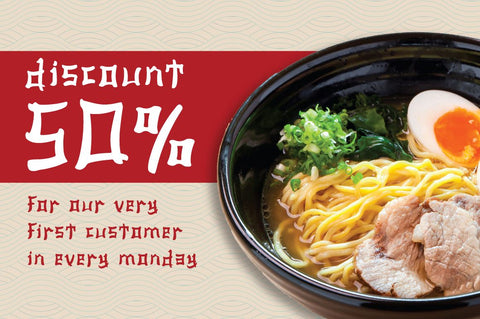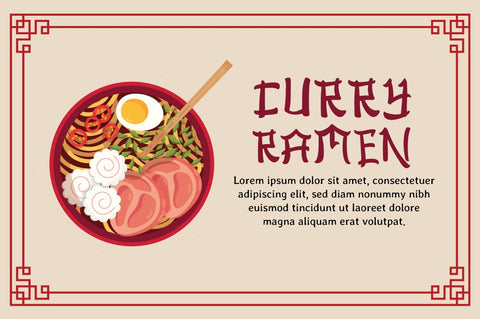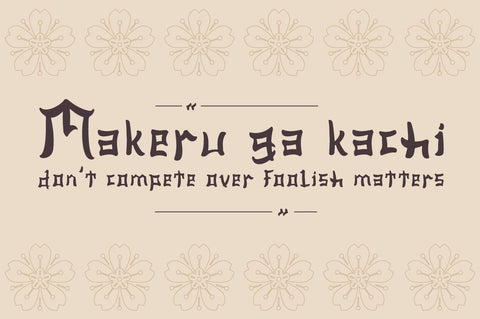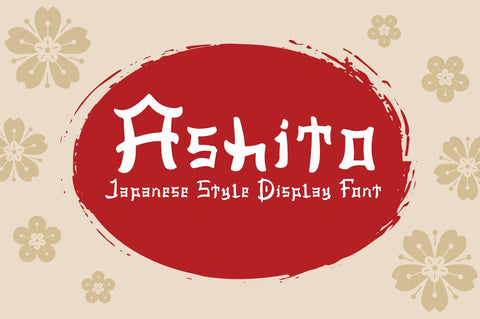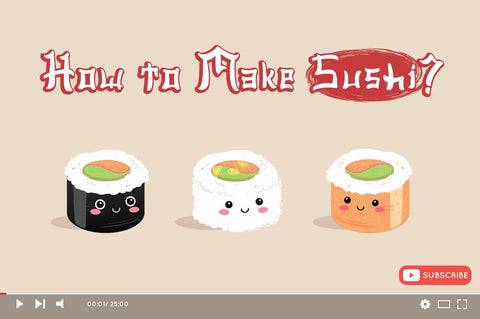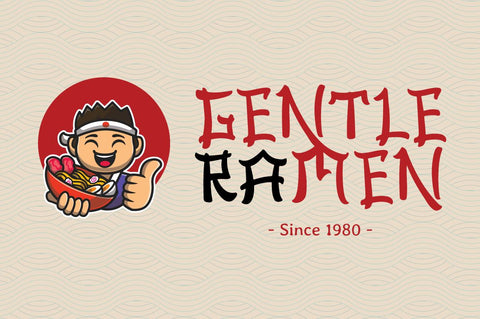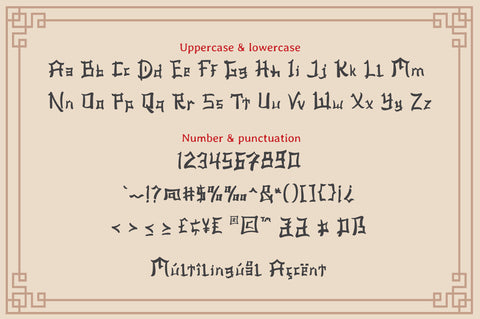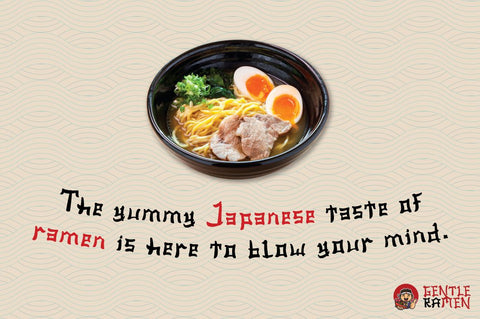
Ashito - Japanese Style Font
Ashito is Font that inspired by Japanese Letter style, perfect for any Asian theme of design & promotion to create spectacular designs!
Ashito is perfect for branding, logo, invitation, stationery, social media post, product packaging, merchandise,
blog design, game titles, cute style design, Book/Cover Title and more.